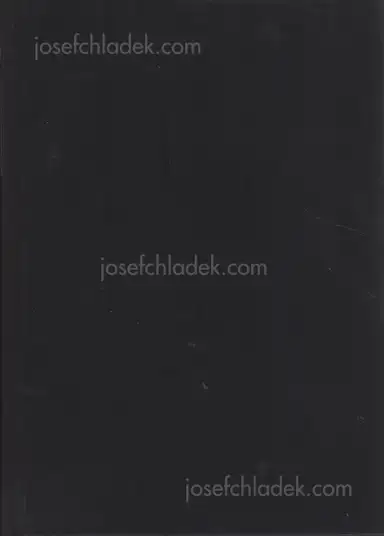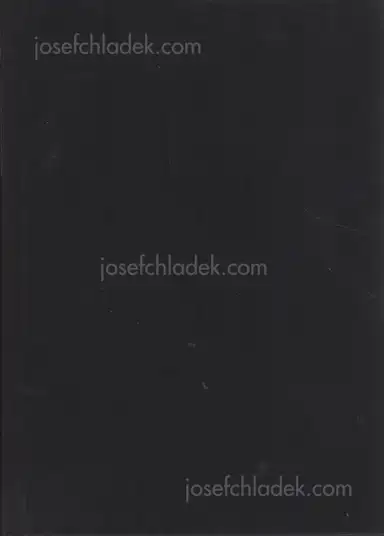
Jan Tschichold - Die neue Typographie, Verlag des Bildungsverbandes der deutschen Buchdrucker, 1928
Black cloth-covered flexible boards stamped in silver.
"In this slim volume, the 26-year old Tschichold presented his manifesto of the principles and rules for a new typographic practice that summarized the contemporary avant-garde convictions about elemental forms and clarity of communication.
Includes typographic examples by Jan Tschichold, El Lissitzky, Kasimir Malevich, Vladimir Tatlin, Walter Dexel, Willi Baumeister, F. T. Marinetti, Tristan Tzara, Man Ray, Theo Van Doesburg, Max Burchartz, Sascha Stone, Piet Zwart, Kurt Schwitters, Herbert Bayer, Johannes Molzahn, Joost Schmidt,  Johannes Canis, Laszlo Moholy-Nagy, Franz W. Seiwert, Lajos Kassak, Otto Baumberger, Karel Teige, John Heartfield,  and others." (modernism101.com)
Artist: Jan Tschichold
Pages: 240
Place: Berlin
Year: 1928
Publisher: Verlag des Bildungsverbandes der deutschen Buchdrucker
Size: 15 × 21 cm (approx.)